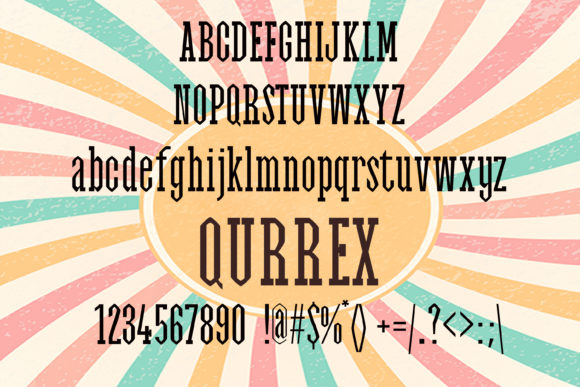
Introduction to Qurrex Font
As a designer, you’ve been staring at your computer screen for hours, trying to find the perfect font to elevate your project. Suddenly, a spark of inspiration hits you – a vintage, whimsical font that adds a touch of magic to your design. That’s where Qurrex Font comes in, a charmingly playful serif typeface that’s sure to capture the essence of your creative vision.
Whether you’re working on a high-quality brochure, a free download template, or a design project with a transparent background, Qurrex Font is the perfect resource to bring your ideas to life. Its unique blend of vintage charm and modern sophistication makes it a valuable addition to any designer’s toolkit.
In this article, we’ll delve into the world of Qurrex Font, exploring its features, benefits, and best uses. From creative projects to everyday design tasks, discover why Qurrex Font is a must-have resource for designers looking to add a touch of personality to their work.
Key Features of Qurrex Font
- High-quality design with a transparent background, ideal for creative projects and backgrounds.
- Font size: 1-200 points, with precise control over font size and style.
- Resolution-independent design, ensuring crisp and clear display on high-resolution screens.
- Comprehensive character set, including Latin, Cyrillic, and Greek alphabets, making it a versatile design resource.
- Unique, creative style with a modern twist, perfect for adding a touch of sophistication to any design project.
- Supports various languages, including English, Spanish, French, and many more, making it a valuable resource for multilingual designs.
Honest Review: Qurrex Font
I recently had the chance to work with the Qurrex Font, and I’m excited to share my honest thoughts with you. As a designer, I’m always on the lookout for high-quality fonts that can elevate my creative projects.
- ✨ One of the standout features of the Qurrex Font is its clean and modern design. It’s perfect for projects that require a sleek, professional look.
- ✨ The font is highly customizable, with a wide range of styles and weights available for free download. This makes it an excellent resource for designers who want to add some variety to their work.
- ✨ The Qurrex Font is also incredibly versatile, making it suitable for a wide range of creative projects, from logos and branding materials to digital products and publications.
However, there are a few limitations to keep in mind. ⚠️ The font’s transparent background can sometimes cause issues with text overlay, and the free download version may not include all the styles and weights that are available in the paid version.
Overall, I’m impressed with the Qurrex Font and would definitely recommend it to fellow designers. It’s a valuable addition to any design resource library, and its high quality and versatility make it an excellent choice for creative projects.
Tips for Getting the Most Out of Qurrex Font
To get the most out of Qurrex Font, experiment with different font sizes, colors, and combinations. Qurrex Font’s high quality and versatility make it a great choice for a wide range of creative projects.
Qurrex Font is commonly used in graphic design, digital art, and creative writing. Its high quality and transparent background make it a great choice for presentations, documents, and digital media.
Can I customize the Qurrex Font to fit my specific design needs?
While the Qurrex Font is a high-quality design resource, it’s not designed to be heavily customized. However, you can experiment with font pairing and styling to create unique and creative effects. If you need to make significant modifications to the font, we recommend using a font editing software like FontForge or Glyphs.